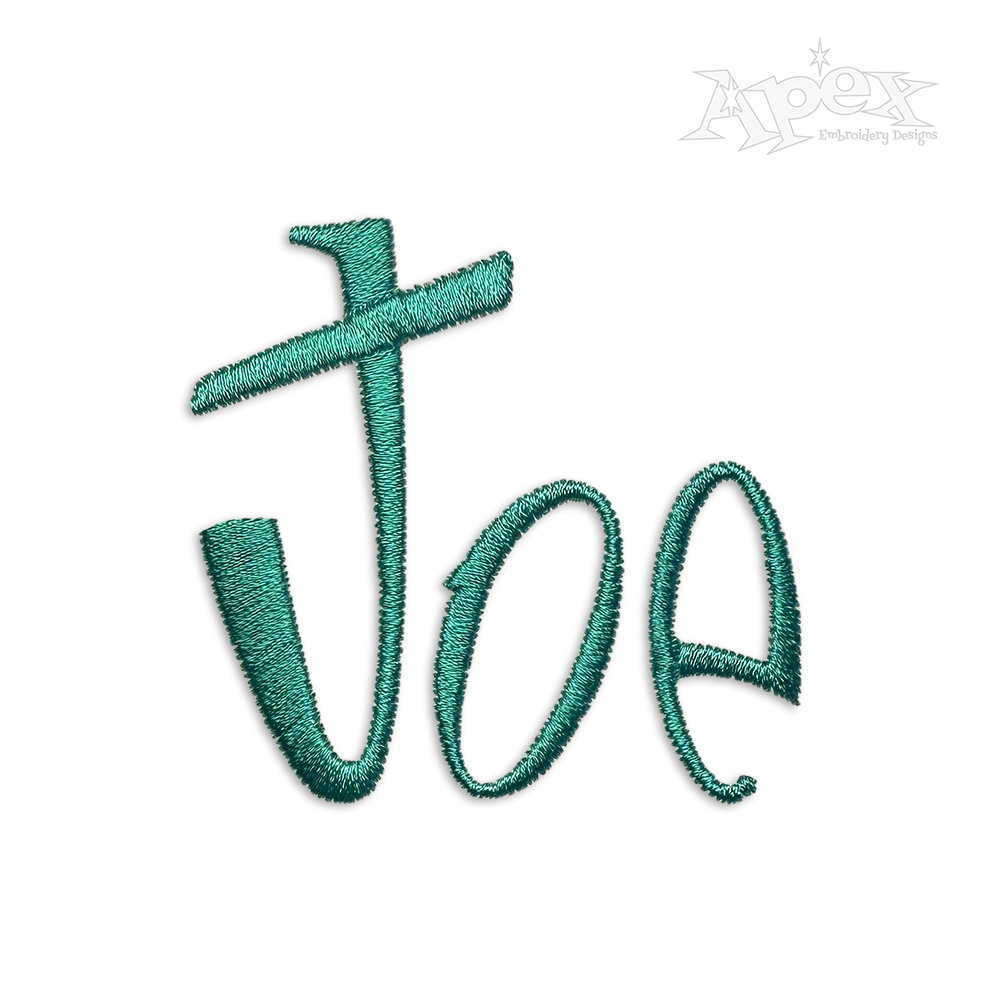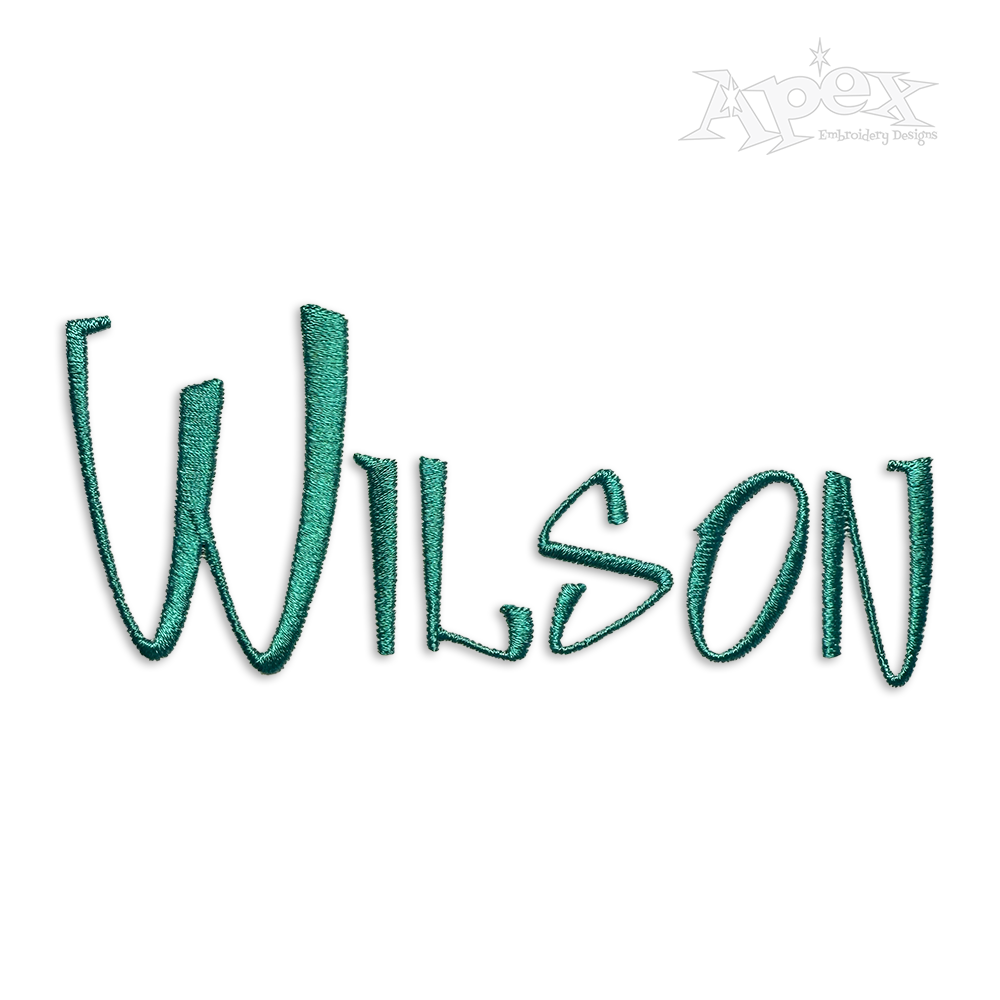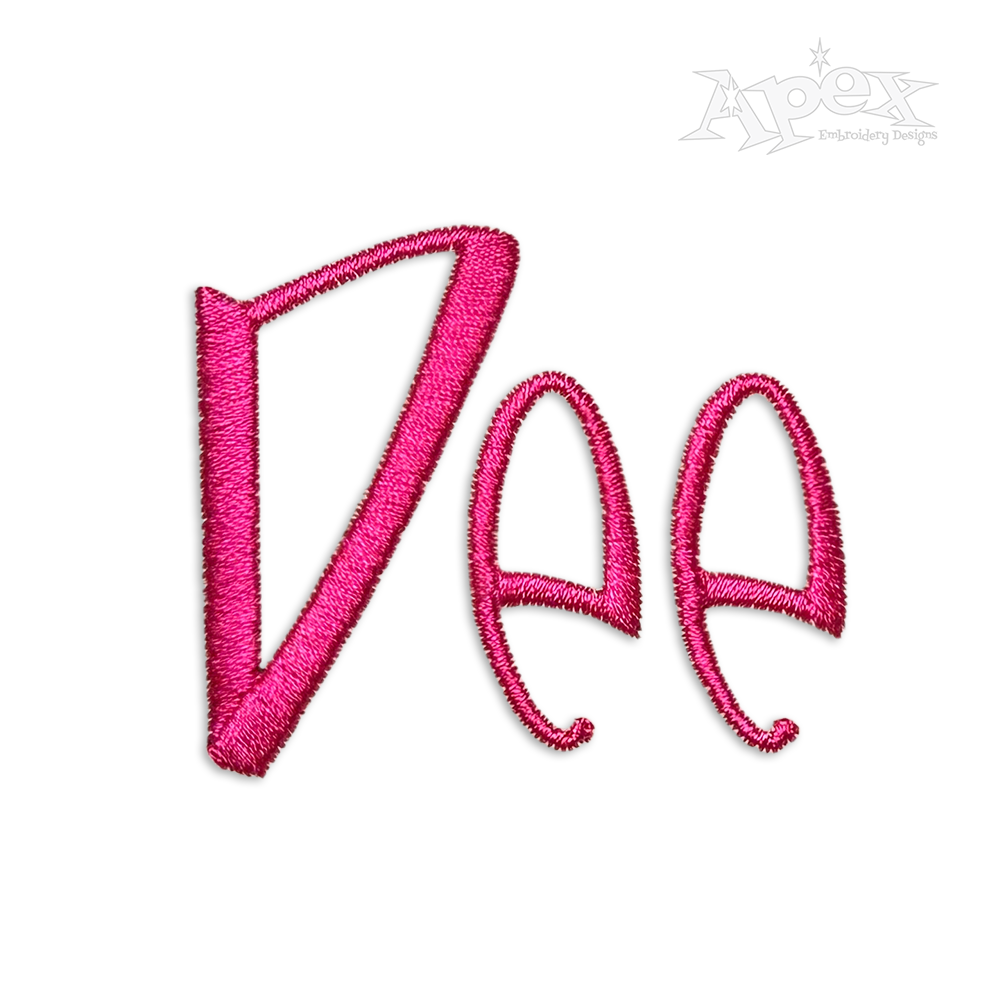
Jive Embroidery Fonts
Born from the rhythmic energy of mid-century jazz culture and retro typography, the Jive Embroidery Font brings an undeniable swing and expressive charm to your embroidery machine. When digitizing this spirited alphabet, our master digitizers sought to capture that rare balance between playful, syncopated movement and immaculate needlework precision. Every letterform glides with lively swoops, buoyant curves, and tailored weight shifts that transform ordinary lettering into a striking typographic statement. Whether you are embellishing casual resort wear or elevating personalized gifting, Jive stitches out with a luminous, dimensional finish that feels both effortlessly nostalgic and distinctly modern.
Jive Embroidery Font Craft & Letterform Details
The true beauty of the Jive Embroidery Font lies in its nuanced digital craftsmanship. Rather than simply scaling down a single vector outline, each size was digitized from the ground up to address the unique push-and-pull physics of satin stitching. The letterforms feature dynamic tapers, gentle baseline bounces, and lively crossbars that celebrate the hand-drawn spirit of retro signage. We meticulously engineered the satin column angles to follow the organic sweep of every curve, ensuring light reflects evenly across the thread for a continuous, liquid sheen. Generous pull compensation and smart underlay mapping protect the font's crisp silhouettes from distorting, guaranteeing smooth curves, tidy intersections, and effortless, snag-free stitching across both structured linens and plush textiles.